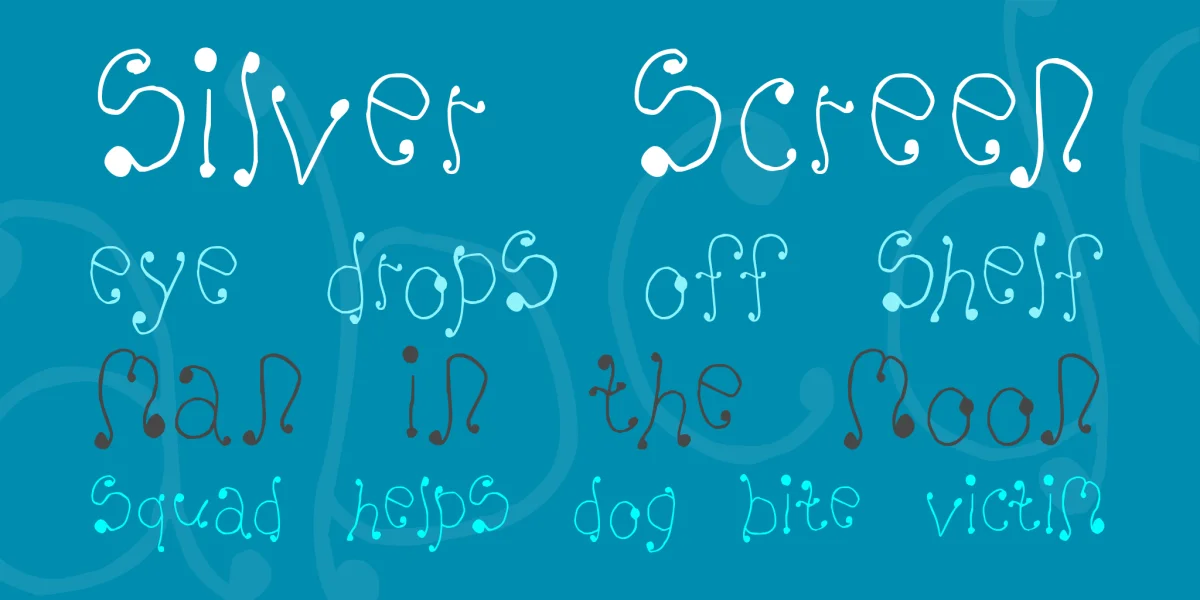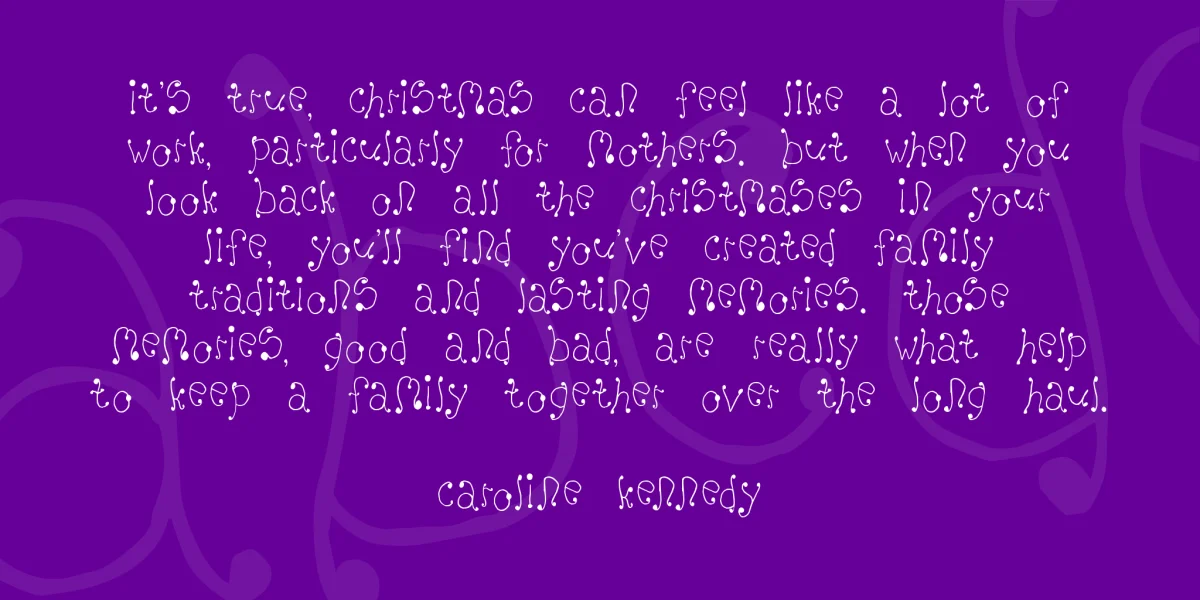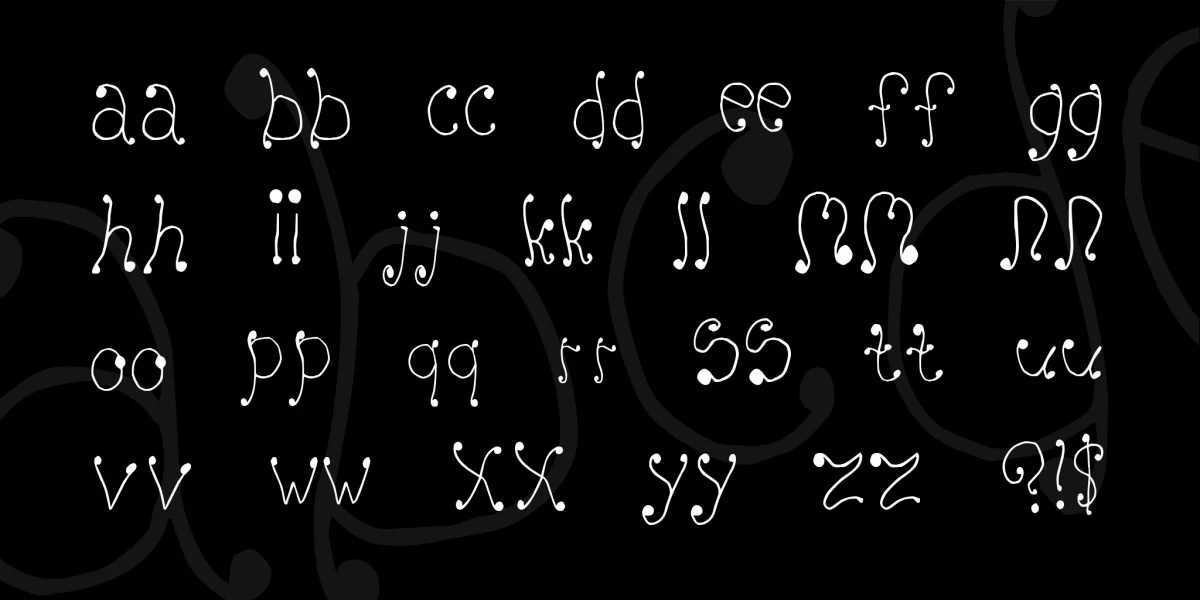
(Caps/Lower [same], Some Punctuation, Some Special) is as girly a font as I could make. There are big dots as serifs, and the strokes are very loopy and decorative, yet uneven and cartoony. Or rather, it's Girly. There is only a lowercase (more like unicase) set, so it is best used for headlines.